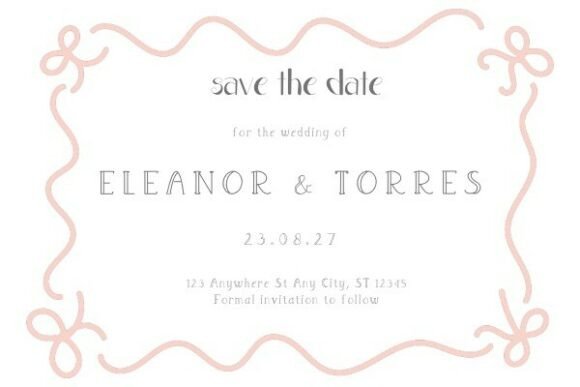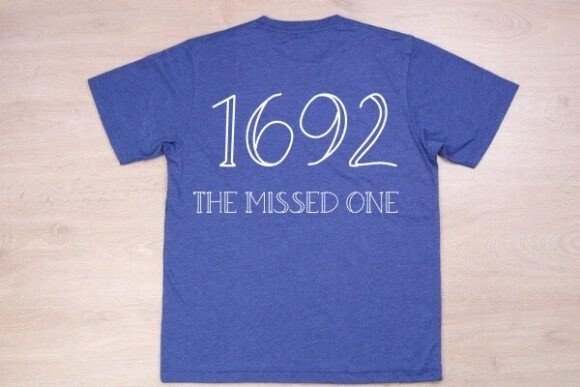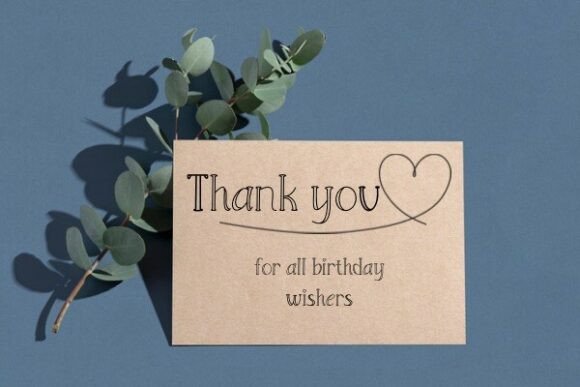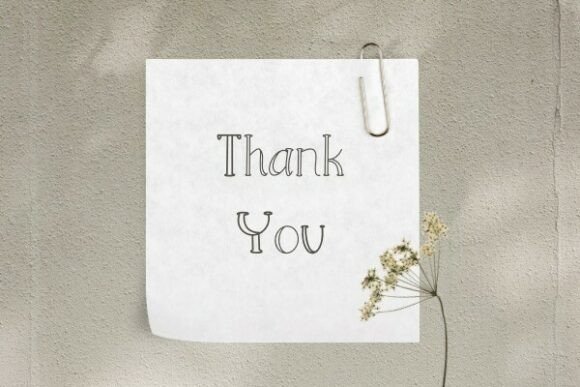
The Cherlly Font: A Charming Handwriting Font to Elevate Your Designs
I’ll never forget the moment I stumbled upon the Cherlly font. I was working on a project for a client who wanted a custom t-shirt design, and I was struggling to find the perfect font. The design needed to be playful, yet sophisticated, and I just couldn’t seem to find a font that fit the bill. That was until I discovered Cherlly. Its unique blend of subtlety and charm instantly caught my eye, and I knew I had found the perfect fit. In this article, I’ll share my experience with the Cherlly font, its features, and how to make the most of it in your designs.
An Honest Review of Cherlly Font
What I Love About Cherlly ✨
- ✅ Unique and charming handwriting style: Cherlly’s handwritten style is unlike any other font I’ve come across. Its subtle quirks and imperfections make it feel like it was written by hand.
- ✅ Highly versatile: Whether you’re designing a t-shirt, a mug, or a greeting card, Cherlly fits right in.
- ✅ Easy to read: Despite its handwritten nature, Cherlly is surprisingly easy to read, even at smaller font sizes.
- ✅ Perfect for creative projects: From crafters to professional designers, Cherlly is an excellent choice for any creative project.
- ⚠️ Limited use in formal designs: While Cherlly is perfect for creative projects, it may not be the best fit for formal designs, such as business cards or resumes.
- ⚠️ Some letters may require adjustment: As with any font, some letters may require adjustment to get the perfect spacing and alignment.
The Backstory of Cherlly Font
Cherlly was designed by a team of creatives who wanted to create a font that was both charming and sophisticated. Inspired by traditional handwriting, Cherlly’s unique style is perfect for adding a personal touch to any design. Whether you’re a designer, crafter, or hobbyist, Cherlly is sure to become a favorite in your font collection.
| Font Name | Cherlly Font |
| Author | Uloel Design |
Q: What type of designs is Cherlly best suited for?
A: Cherlly is perfect for creative projects, such as t-shirt designs, tote bags, mugs, greeting cards, and invitations.
Q: Is Cherlly easy to read?
A: Yes, despite its handwritten nature, Cherlly is surprisingly easy to read, even at smaller font sizes.